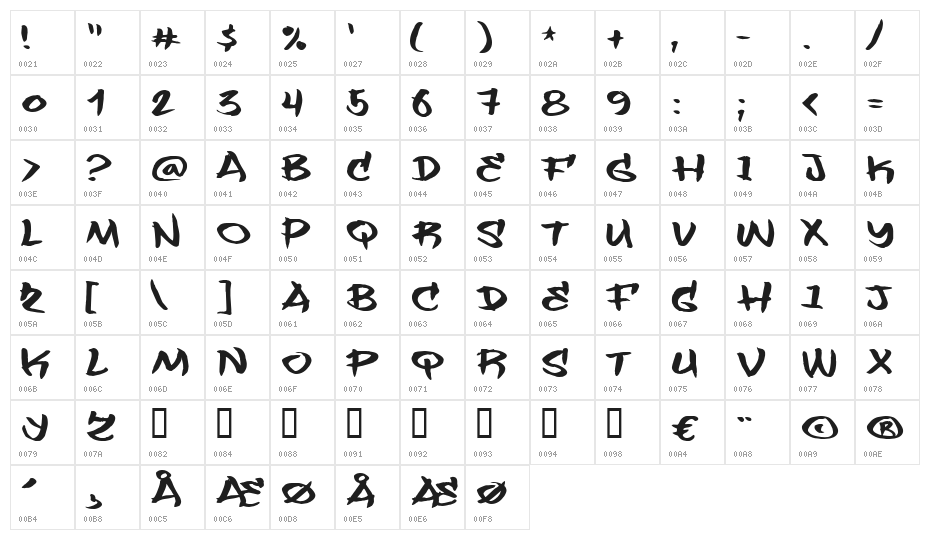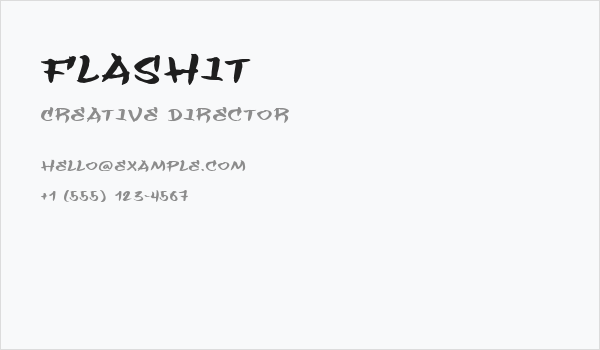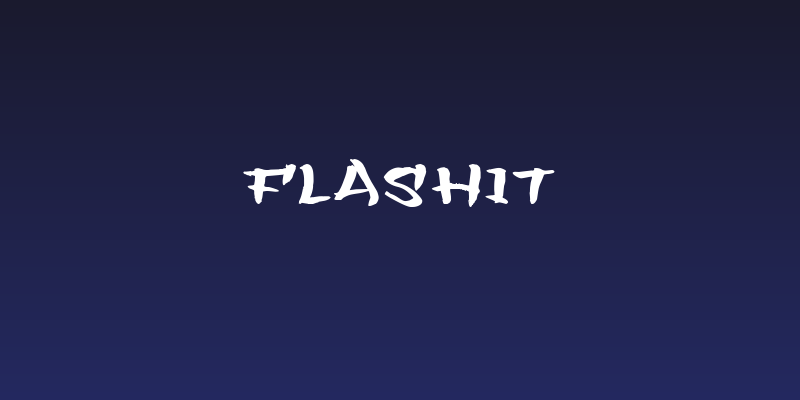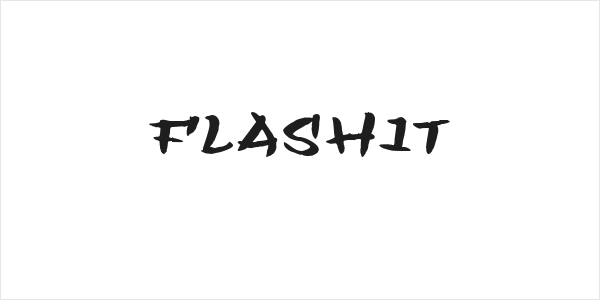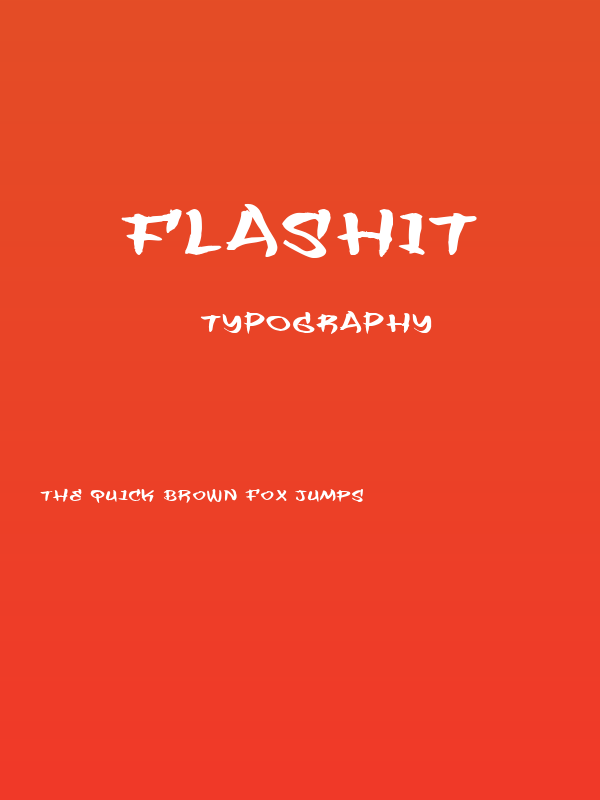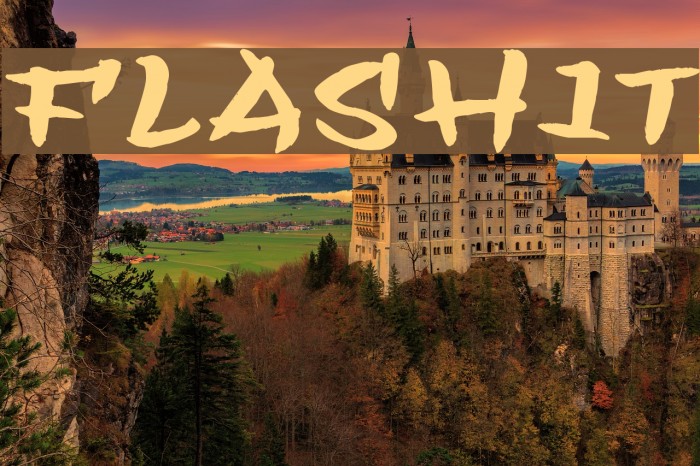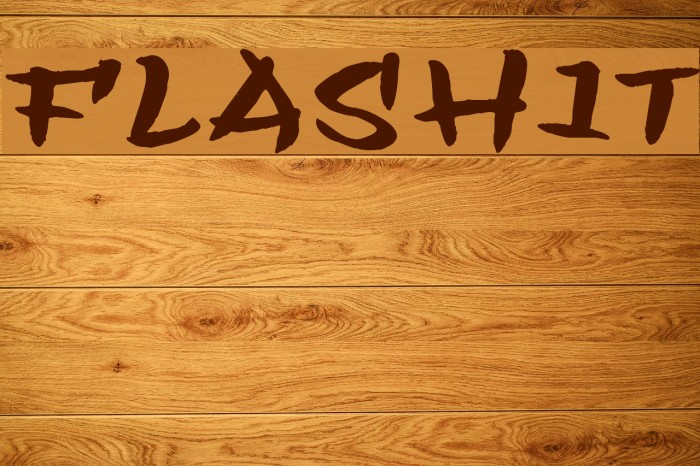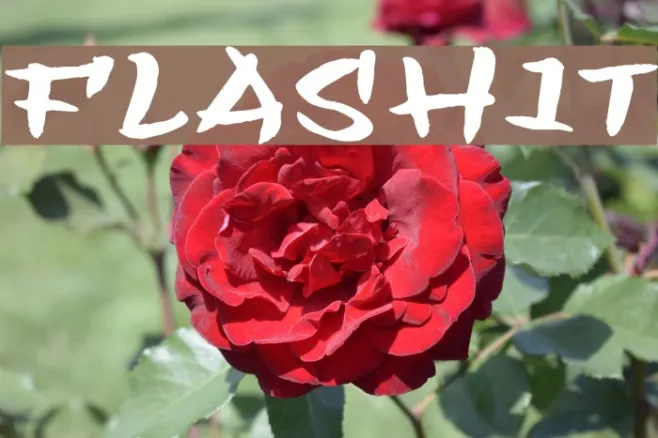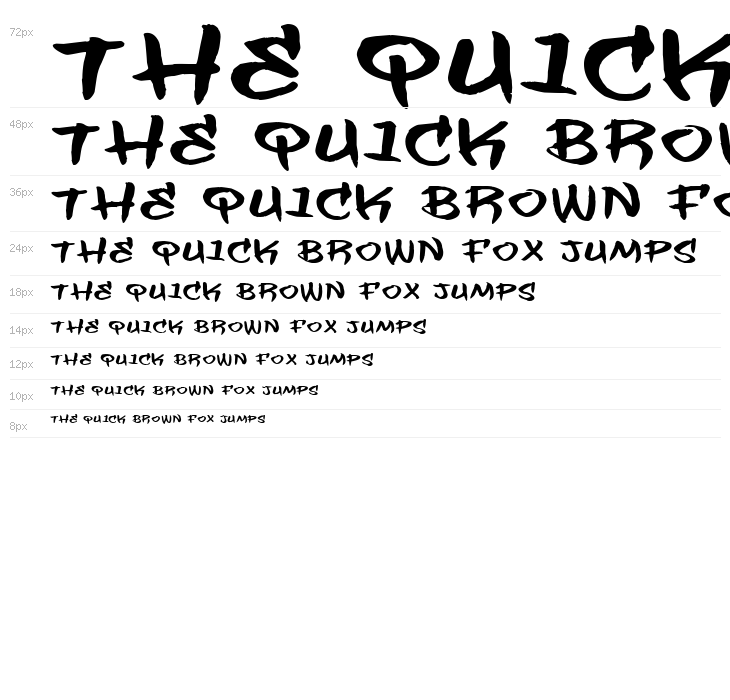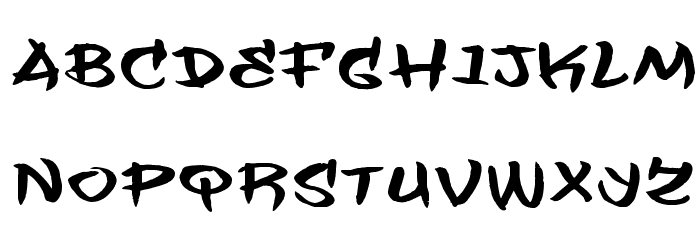
Flashit Font
Flashit Description
This font features a bold and dynamic script style with a brush-like appearance, giving it an energetic and expressive feel. The characters are slightly slanted, adding to the sense of movement and flow. The strokes are thick and varied, with high contrast between the thick and thin parts, creating a dramatic and eye-catching effect. The overall design is playful yet sophisticated, making it suitable for creative and artistic projects. The letters are well-spaced, ensuring readability while maintaining the font's unique character.
| Use Case | Logos, Headlines, Posters |
| Proposed Projects | Ideal for branding, posters, invitations, and any project requiring a creative and artistic touch. |